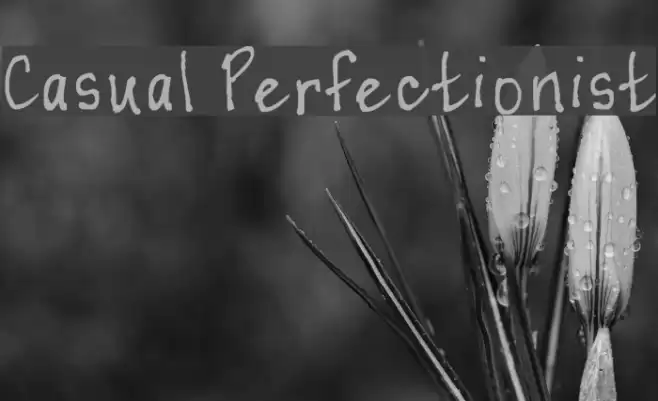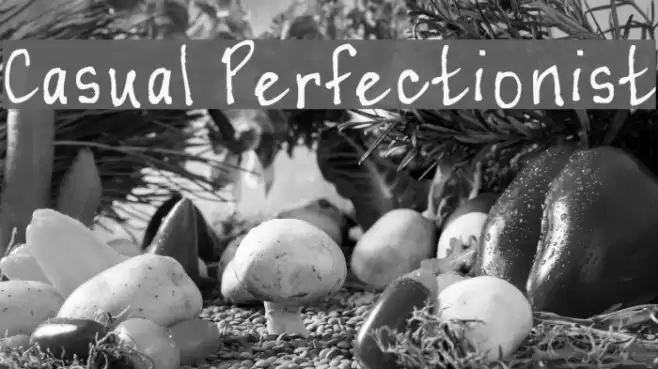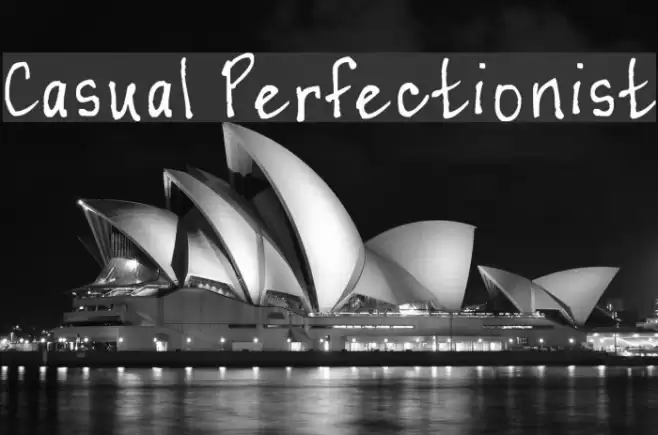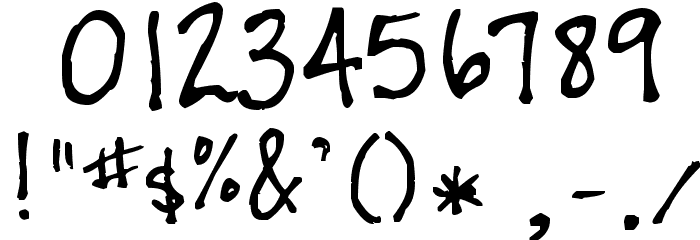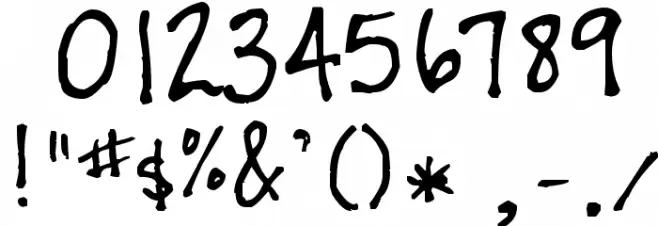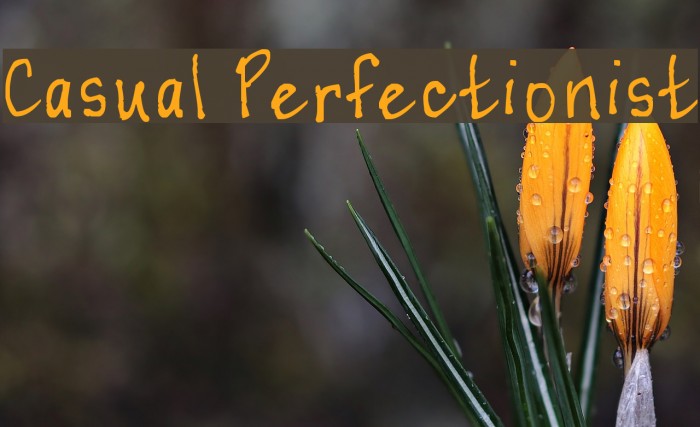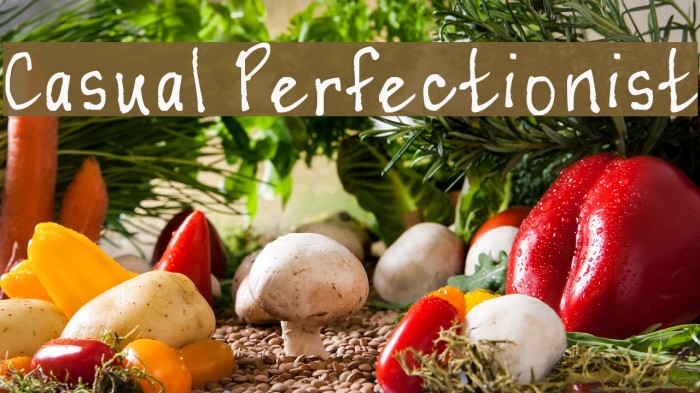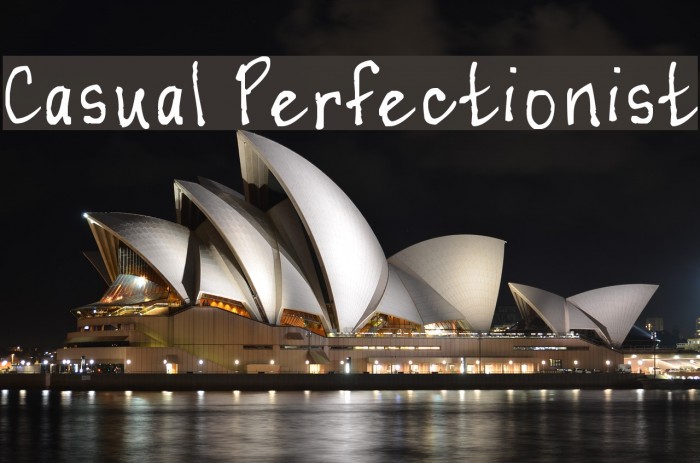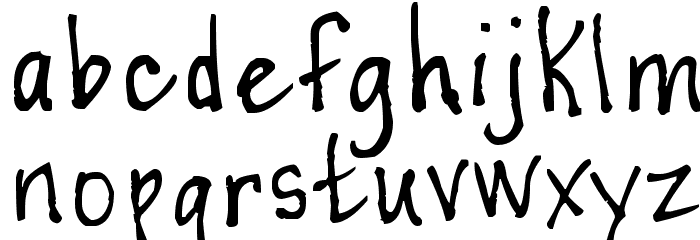
Casual Perfectionist Font
Casual Perfectionist Description
This font exudes a casual, handwritten style with an organic and slightly irregular appearance, giving it a personal and approachable feel. The characters are bold and expressive, with varying stroke thickness that adds to its dynamic nature. The uppercase letters are tall and slightly narrow, while the lowercase letters maintain a consistent flow, enhancing readability. Numbers and special characters follow the same playful and informal aesthetic, making the font versatile for creative projects. Its unique charm lies in its imperfect lines and spontaneous character shapes, which convey a sense of authenticity and creativity.
A bold, handwritten font with a casual and expressive style from Uncategorized fonts.
- Proposed Projects: Ideal for personal branding, creative projects, greeting cards, and informal invitations.
- Overall Style: Casual
- Use Case: Logos, Headlines, Informal text